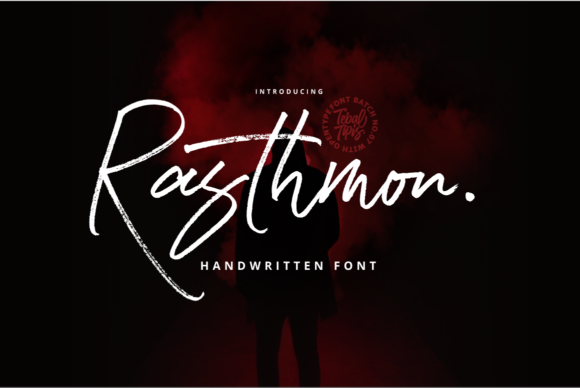
Unleash the captivating beauty of your content with Rasthmon Font, a mesmerizing script font crafted to ignite emotions and leave a lasting impression. Immerse yourself in the world of creative expression as you explore the endless possibilities that await you.
Let Rasthmon's elegant strokes take you on a journey of visual delight, leaving your readers spellbound with its enchanting appearance. Its carefully crafted characters exude a natural flow, creating a visual masterpiece that effortlessly captures the essence of handwritten elegance.
Whether you're crafting blog posts that resonate with your audience, designing captivating invitations that leave a lasting impression, or creating stunning product packaging that demands attention, Rasthmon Font is your perfect companion. Its adaptability knows no bounds, making it the ultimate choice for a wide range of branding endeavors.
With Rasthmon Font, you hold the power to transform ordinary words into extraordinary expressions. Its unique and brushed style adds a touch of personality to your creations, making them stand out from the mundane. Prepare to be amazed as Rasthmon's magic captivates your audience, leaving them utterly enchanted.
Step into a world of creative freedom and let Rasthmon Font guide you. Embrace the beauty of handwritten elegance and elevate your content to new heights of engagement. Discover the joy of creating designs that speak volumes, captivating your audience with every stroke.
Rasthmon Font awaits you, ready to unleash its enchanting charm upon your creative endeavors. Embrace its allure and witness the transformation of your content into a visual feast that leaves an indelible mark on your readers' minds.